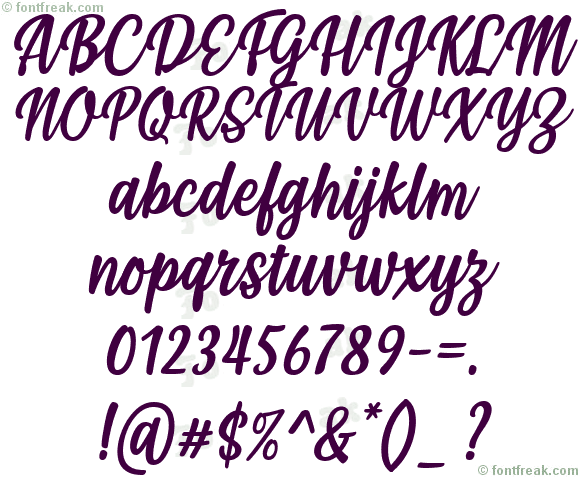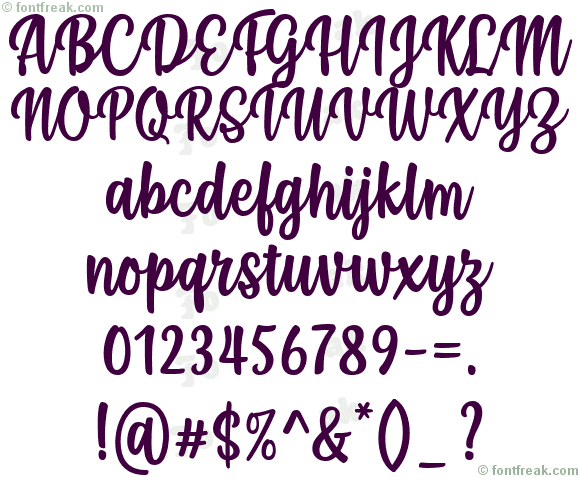
Styla Italic
Styla
The Styla Italic font, designed by Situjuh Nazara in 2019, is a captivating display font that falls into the script category. This typeface exudes a sense of elegance and fluidity, characterized by its smooth, sweeping curves and dynamic strokes. The contrast between thick and thin lines adds a level of sophistication, making it ideal for various creative projects. The font features a balanced spacing that enhances readability while maintaining an artistic flair, giving it a unique presence in any design.
Styla Italic is particularly well-suited for a range of applications. Its graceful appearance makes it an excellent choice for wedding invitations, where elegance is key. Additionally, it can elevate movie posters, adding a touch of drama and style that draws the viewer's eye. Restaurant menus can also benefit from its refined look, making dishes seem more enticing. For graphic designers and content creators looking to add a personal touch to their projects, this font offers an expressive option that stands out.
What sets the Styla Italic font apart is its ability to combine elegance with readability, making it a valuable asset in both digital and print media. Whether you're designing a sophisticated invitation or a vibrant poster, this font inspires creativity and adds an artistic touch to any project. For those looking to elevate their designs, the Styla Italic font free download is an opportunity not to be missed.